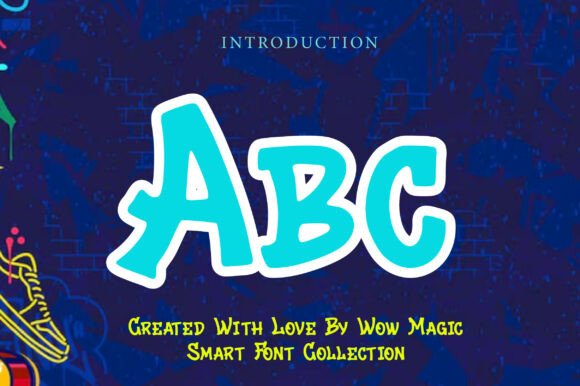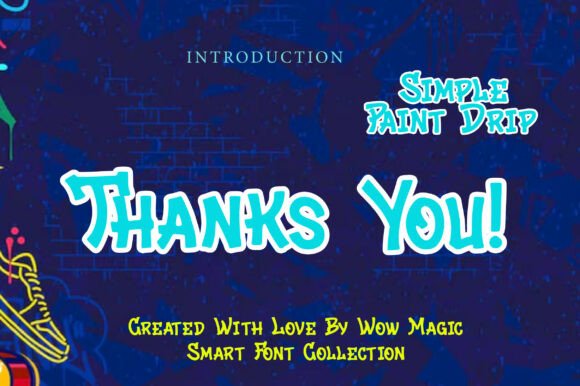
Introduction to Simple Paint Drip Font
Have you ever found yourself in a creative flow, surrounded by paint splatters and chaotic colors, but somehow managing to craft a cohesive piece of art? That’s the kind of energy that Simple Paint Drip Font embodies. This stunning display font is inspired by the raw, expressive power of street art and dripping paint, and it’s about to revolutionize your design projects.
Whether you’re a seasoned designer or a creative enthusiast, Simple Paint Drip Font is a valuable addition to your design arsenal. Its high-quality, handcrafted appearance lends a unique, rebellious personality to every letter, making it perfect for logos, posters, music covers, and event flyers. With its transparent background and clean, controlled look, this font is a game-changer for designers who crave a gritty, energetic touch in their creative projects.
Key Features of Simple Paint Drip Font
- Unique, hand-painted design perfect for creative projects and artistic expressions.
- High-quality font with a transparent background, allowing for seamless integration into various design elements.
- Designed to add a touch of whimsy and playfulness to any design, making it ideal for children’s books, educational materials, and more.
Honest Review: Simple Paint Drip Font
I recently came across the Simple Paint Drip Font, and I must say it’s a great addition to any designer’s toolkit. The free download is available in high quality, making it perfect for any creative project.
What works well with this font is its transparent background, allowing for seamless integration with any design. The paint drip design element adds a unique touch to any text-based project, making it stand out from the crowd. The font is also highly versatile and can be used for a wide range of applications, from headings to body text.
Here are some of the key features that I appreciate about the Simple Paint Drip Font:
- High-quality design with a transparent background
- Unique paint drip design element
- Highly versatile and suitable for various design applications
- The font may not be suitable for formal or professional projects
- Some users may find the paint drip design element too distracting
Overall, I’m impressed with the Simple Paint Drip Font. It’s a great design resource that can add a creative twist to any project. With its high-quality design and transparent background, it’s a must-have for any designer looking to add some visual interest to their work.